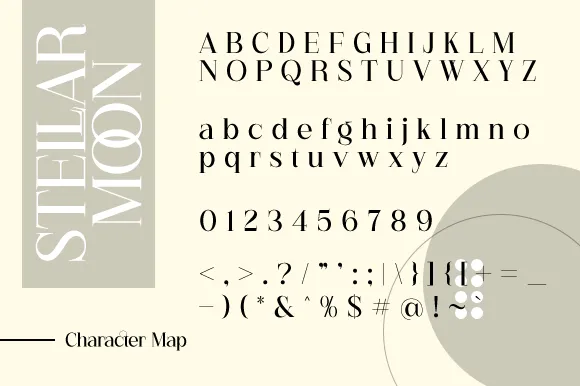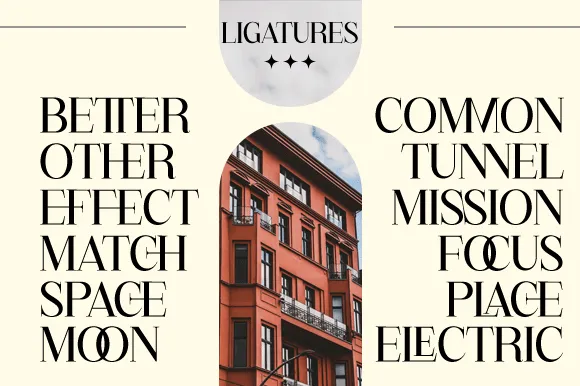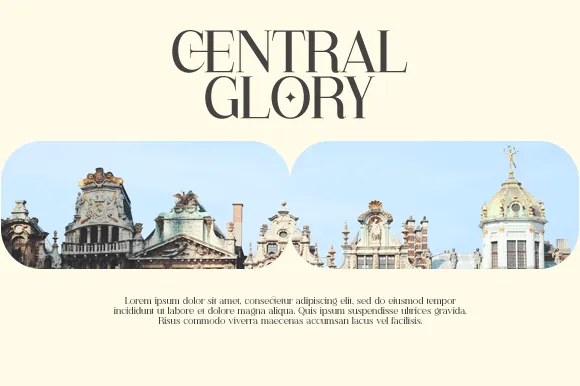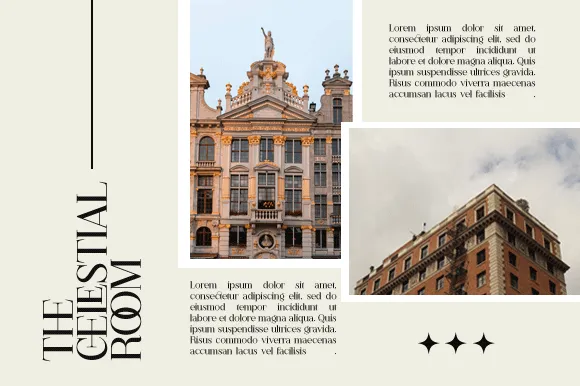
Stellar Moon Font
I’m a full-time typographer and graphic designer, always on the hunt for strong, versatile fonts. I found the Stellar Moon Font while browsing a font specimen archive for a bold serif option. The name caught my eye, but its character sealed the deal. I’ve used it recently in a brand identity project where it became the focal point of the logo and packaging. The clean edges and confident feel worked better than I expected. I wanted to share my thoughts because I know how tough it can be to find a font that’s both creative and dependable. This one delivers.
Font Type and Designer
The Stellar Moon Font is a bold serif typeface designed by Amri Rizki Mauludin and released through ArimaType. It stands out with sharp, balanced strokes and crisp glyphs. The family includes styles like Stellar Moon Regular, blending a strong personality with subtle elegance. The font feels timeless, yet fresh—ideal for designers who want both tradition and edge.
Unlike many free fonts that miss the mark on detail, this one is carefully crafted. Each character carries consistent weight and spacing, giving your designs a smooth and clean finish. It’s also offered in standard font file formats that work seamlessly across both Mac and Windows. If you’re searching for similar fonts, you’ll find few that bring this same level of balance between boldness and class.
Stellar Moon has a lot of potential for branding, editorial layouts, and packaging. It doesn’t just fill a space—it makes a statement. The typography feels thought-out, and the format suits both print and digital. The style feels professional while still being creative, and that’s a rare mix.
Font Features
The best part about Stellar Moon Font is its simplicity. It’s not overloaded with wild shapes or tricky ligatures. Instead, it sticks to what works: clean lines, strong curves, and a confident rhythm. Each glyph shows intention. It’s readable even at smaller sizes, which makes it reliable for paragraph text or body copy. But when you scale it up for titles or logos, it really shines.
This serif font has a personality that doesn’t feel forced. The design feels modern but still holds a bit of that classic serif elegance. If you’re into subtle details, you’ll notice how the terminals have just enough flair to catch the eye without overdoing it. That balance gives you creative freedom without being distracting.
It works well with imagery too. I paired it with some clean graphic layouts and it gave the design depth. You can see the character in every stroke. Whether it’s on a website, print ad, or product label, this font holds its own.
This is where Stellar Moon Font really proves its worth. It’s bold enough for logos, but not so overpowering that it can’t handle long-form copy. I’ve tested it in a branding system, but it would also look great on posters, magazines, or upscale product packaging.
If you’re working on a commercial project—think restaurant menus, fashion brands, editorial layouts, or beauty labels—this serif can carry the aesthetic. It pairs well with clean sans-serifs if you want a bit of contrast. In web design, its readability and bold presence make it ideal for hero sections or article headers.
This font also works in more creative spaces. Mood boards, album covers, art prints—it adapts without losing its core style. You won’t have to force it into place. It just fits.